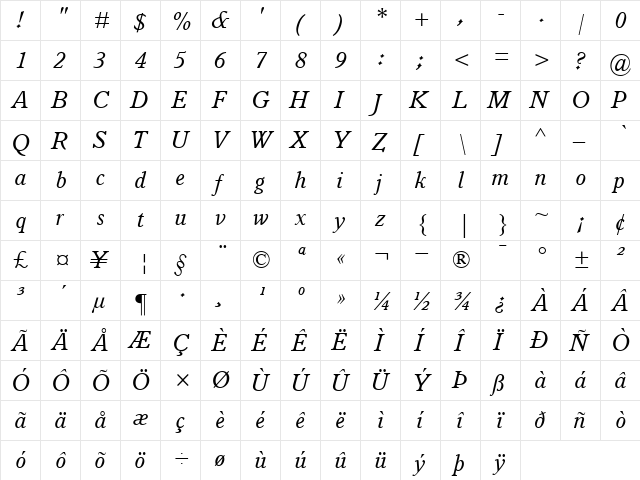
ItalianOldStyleMT RomanItalic
Design Context for ItalianOldStyleMT Typeface
ItalianOldStyleMT carries the refined structure of traditional serif typography, with bracketed terminals and considered proportions that communicate credibility and craft. The slanted form adds forward momentum and visual energy.